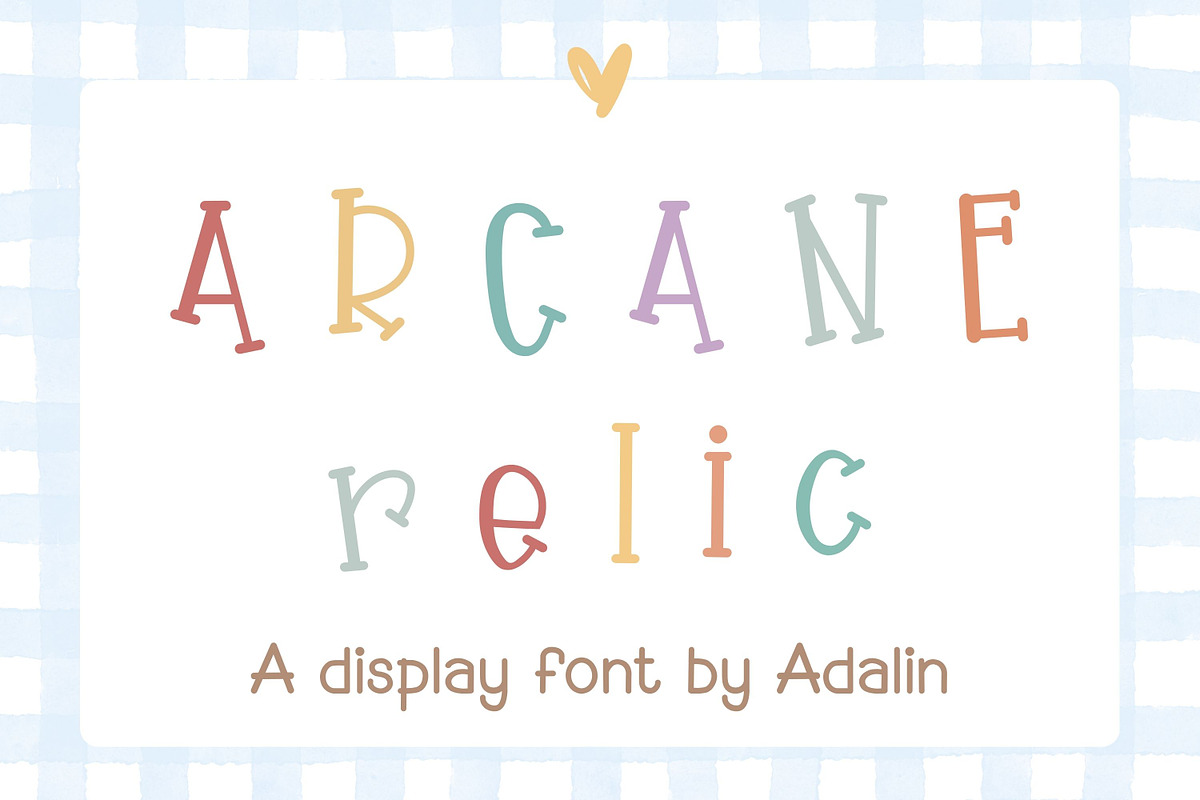
Arcane Relic delivers a handcrafted, storybook-inspired voice that injects warmth and personality into every design. Drawing from the nostalgic charm of antique lettering and vintage children’s books, this display font embraces tall letterforms, playful serifs, and subtle textural marks to create a friendly, magical atmosphere. Designers will find Arcane Relic both expressive and reliable: it reads clearly in headlines, stands out on packaging, and lends a handcrafted feel to invitations, posters, and merchandise.
Key Visual Features And Distinctive Typographic Details
Arcane Relic emphasizes character and handcrafted detail. The design features tall x-heights and generous ascenders that create a storybook cadence in headlines and titles. Playful serifs and slightly irregular stroke endings evoke hand-drawn letterforms without sacrificing legibility. Soft internal textures and faint distressing give printed and digital work an authentic vintage tone. These deliberate imperfections enhance warmth and tactile personality while keeping the typeface usable across a wide range of design contexts.
Comprehensive Character Set And Practical Design Utilities
- Complete uppercase and lowercase alphabets optimized for display use
- Full numerals, punctuation, and basic diacritics for broad language support
- Alternates and stylistic variations that let you customize wordmarks and headlines
- Kerning pairs tuned for tight layouts and responsive display scaling
Active Uses And Real-World Applications For Creative Projects
Arcane Relic performs strongly wherever designers need warmth, charm, and storytelling energy. Use it for children’s books and nursery artwork to create engaging headlines and chapter titles that feel handcrafted. Apply it to invitations and greeting cards to impart personality and a handmade touch. Brand packaging that benefits from a nostalgic identity—artisan foods, craft goods, and boutique toys—will gain a compelling visual signature with Arcane Relic. The font also enhances posters, stickers, T-shirts, and DIY craft projects by providing a distinctive, approachable voice.
Targeted Examples Of Effective Implementation Strategies
- Children’s book covers: pair Arcane Relic with warm illustrations and generous margins to maximize storytelling impact
- Invitations and stationery: use alternates and loose tracking to create a handcrafted, elegant hierarchy
- Packaging and labels: apply subtle textures and muted color palettes to strengthen vintage cues
- Merchandise and apparel: set strong display sizes for headline impact while keeping secondary text neutral
Pairing Advice And Design System Recommendations
To balance Arcane Relic’s expressive nature, pair it with neutral sans-serifs for body copy and minimal serifs for secondary headings. A clean geometric or humanist sans will preserve readability while allowing Arcane Relic to anchor the visual identity. For editorial or multi-page projects, reserve Arcane Relic for headlines, pull quotes, and chapter markers; use a legible serif or sans for long-form text. When building a brand system, include color variations, texture presets, and alternate glyph usage guidelines to maintain consistent application across print and web.